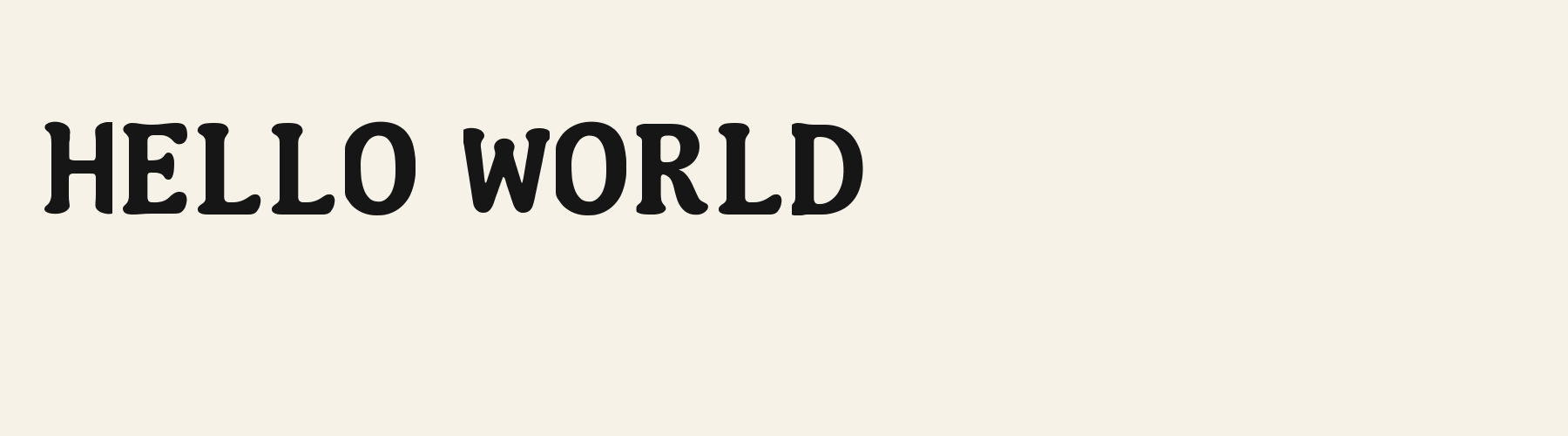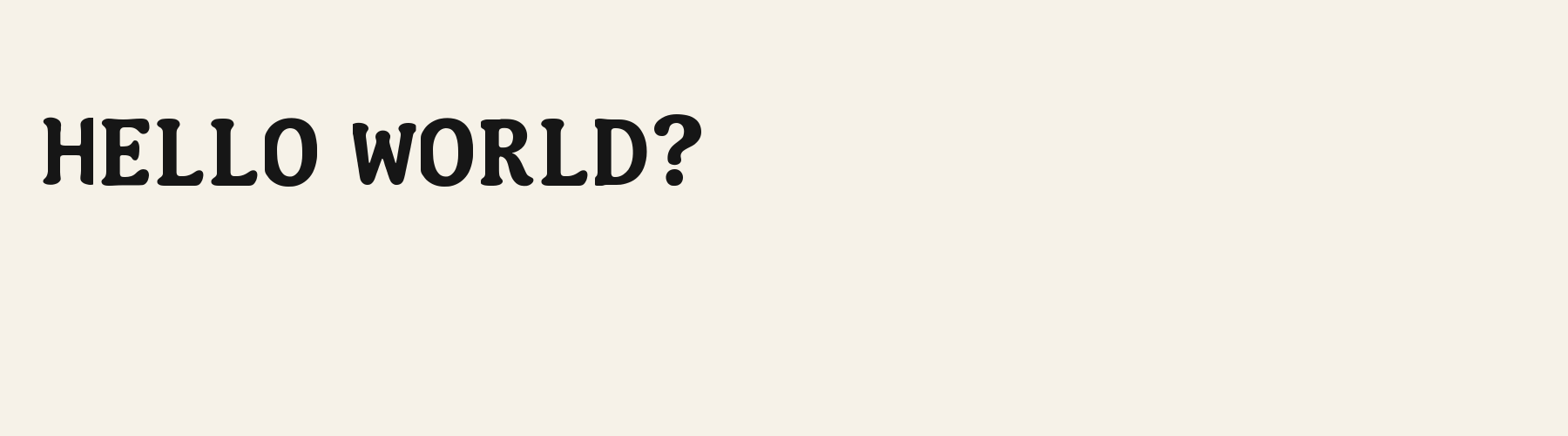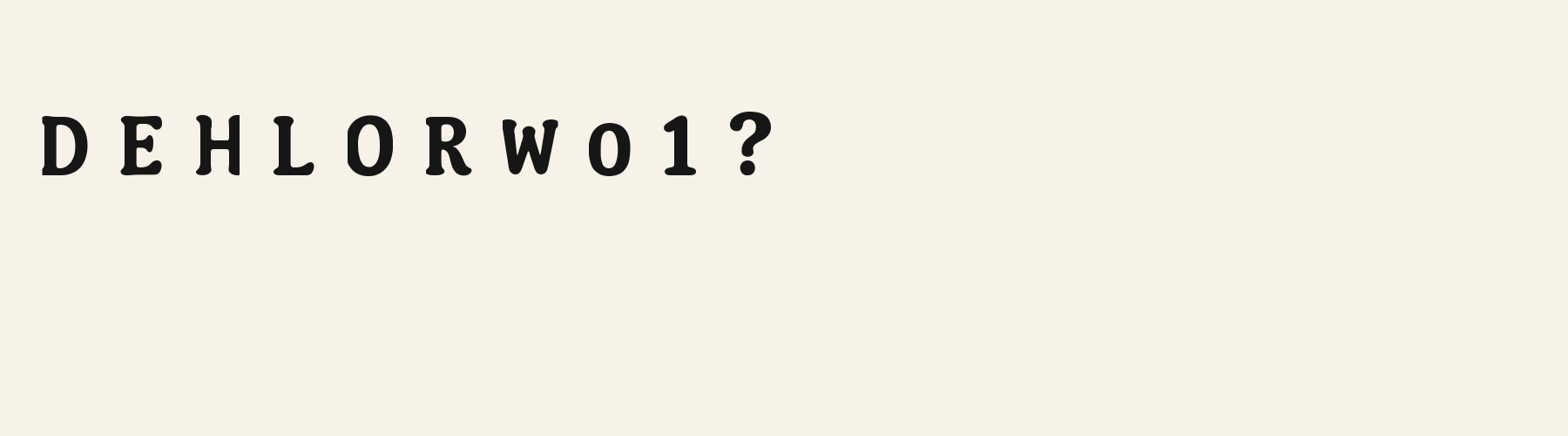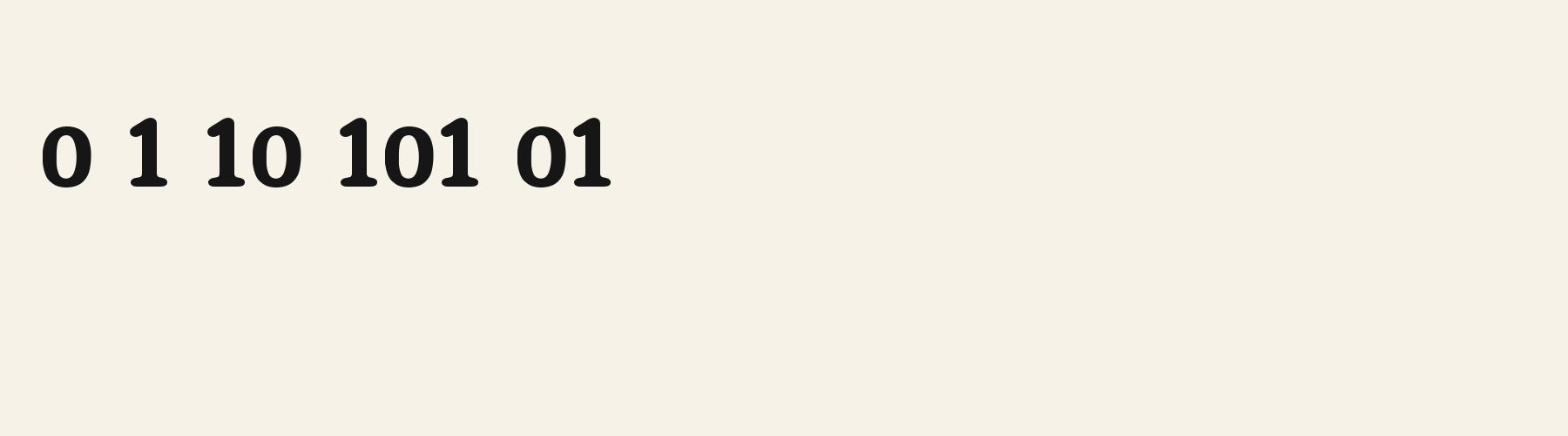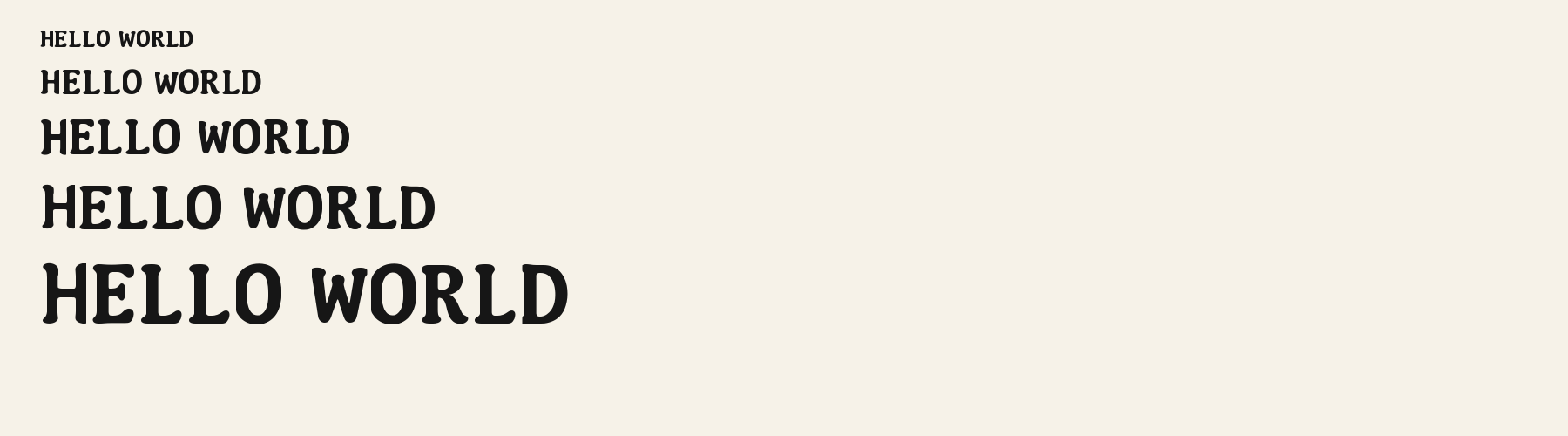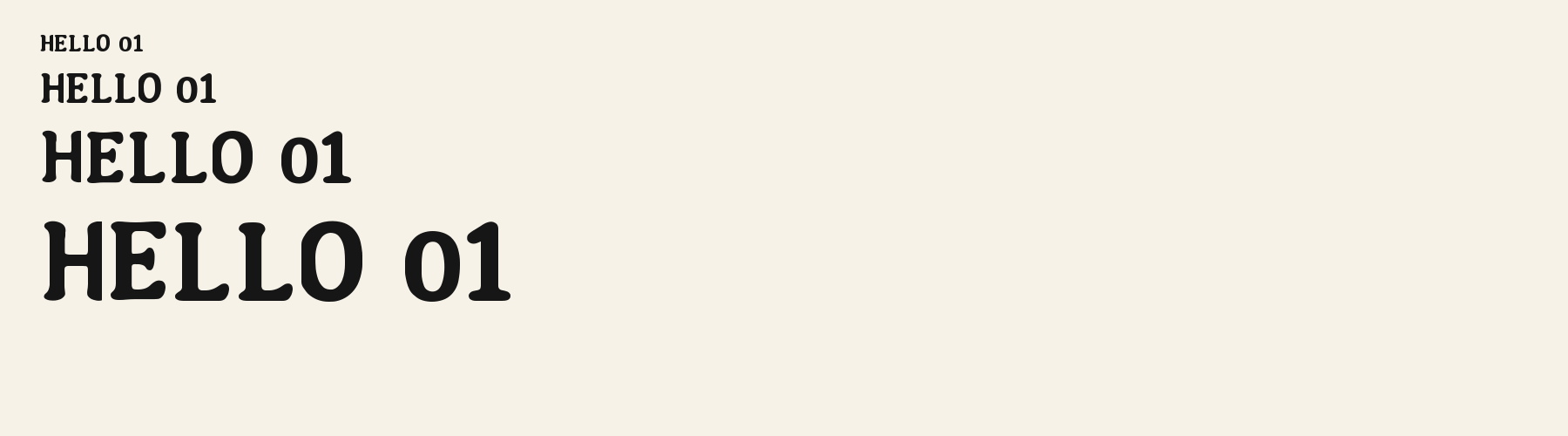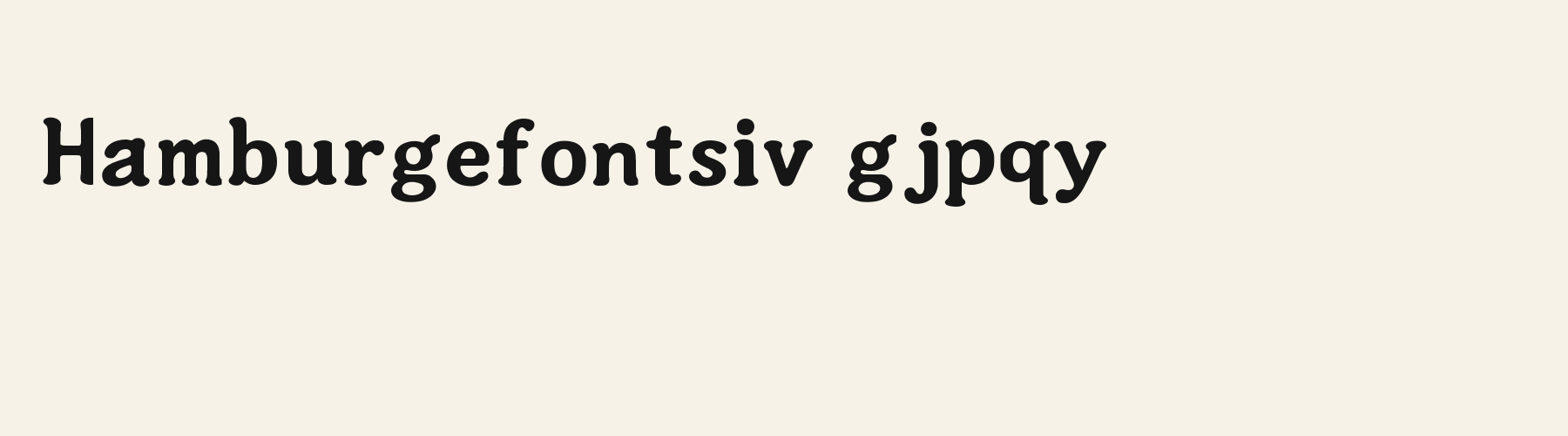
Pretty Bowline Soft
DisplayPretty Bowline Soft
Pretty Petal Soft is a soft display letters use petal-like terminal cuts, rounded joins, and generous counters while keeping every decoration attached to the stroke end. Rounded joins; stroke weight and contrast are not specified in the brief. Best for names, cards, and gentle lifestyle graphics.